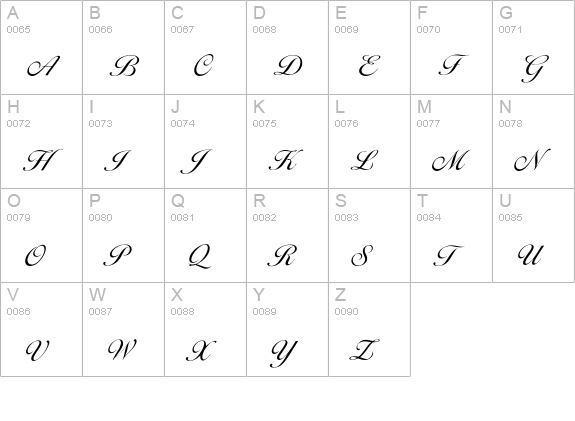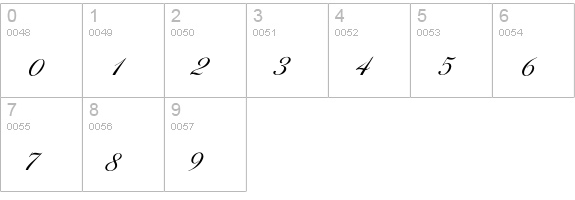
Iballantines-Light Font Details
Iballantines-Light is a refined, elegant variant in the Iballantines typeface family \xE2\x80\x94 well suited to elegant body text, refined sub-headings, and luxury branding.
Iballantines-Light is a beautifully crafted font that exudes elegance and sophistication. Its delicate and refined letterforms make it perfect for a wide range of design projects, from wedding invitations to branding materials. With its graceful curves and clean lines, Iballantines-Light adds a touch of class to any design. What sets Iballantines-Light apart is not only its aesthetic appeal but also its accessibility. This font is freely available to download at FontsMarket.com, allowing designers and creatives to effortlessly incorporate it into their work. Whether you're a professional designer or just starting out, Iballantines-Light offers a versatile and high-quality solution for your typography needs. The beauty of Iballantines-Light lies in its simplicity. The thin strokes and open counters create a sense of lightness and airiness, making it easy to read and pleasant to the eye. This font is highly legible, even in small sizes, making it suitable for both print and digital applications. Iballantines-Light's versatility extends beyond its visual appeal. The font's extensive character set includes a variety of accents, punctuation marks, and symbols, making it suitable for multilingual projects. Whether you're designing for English, Spanish, French, or any other language, Iballantines-Light has you covered. With its timeless elegance and effortless charm, Iballantines-Light is a font that will never go out of style. Its versatility, accessibility, and high-quality design make it a must-have for any designer's toolkit. Download Iballantines-Light for free at FontsMarket.com and elevate your design projects with this exquisite font.